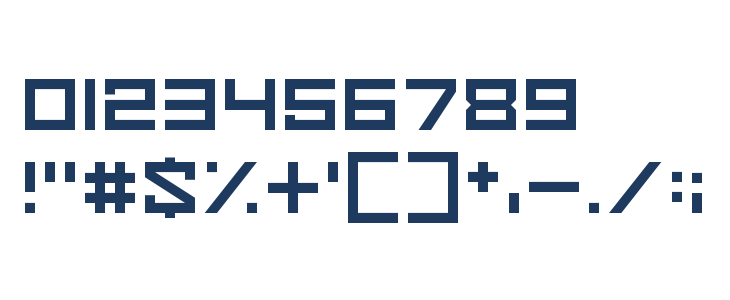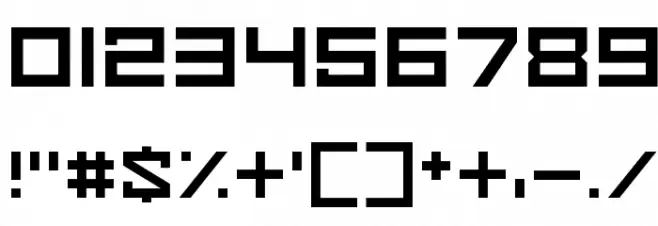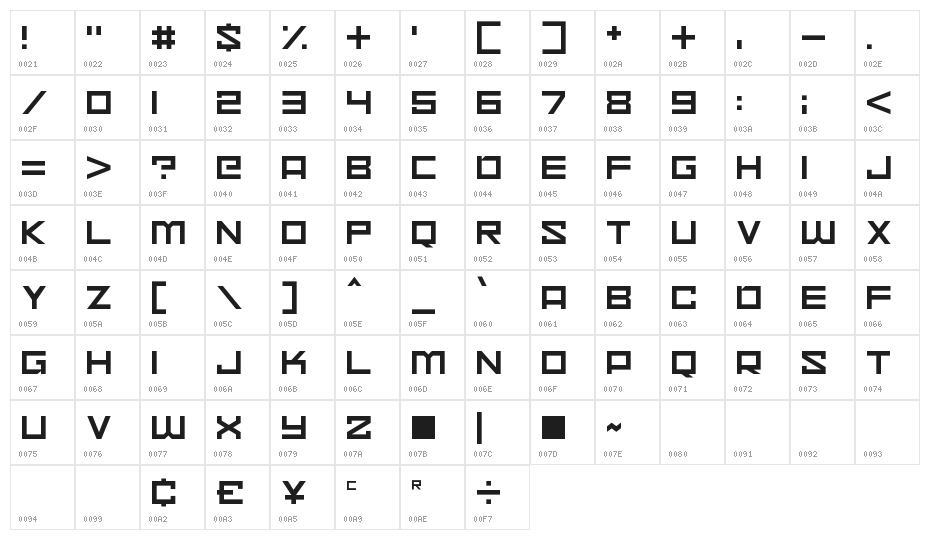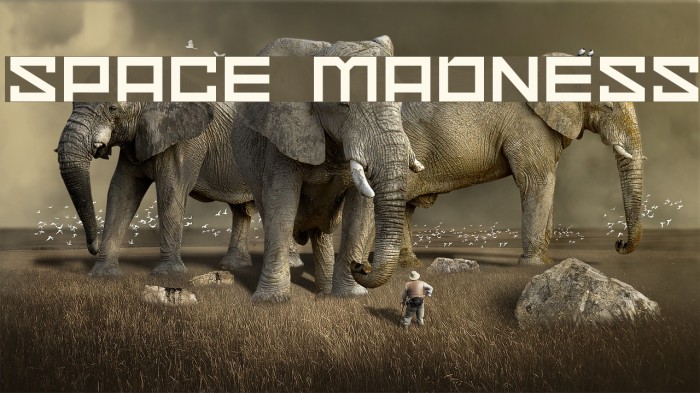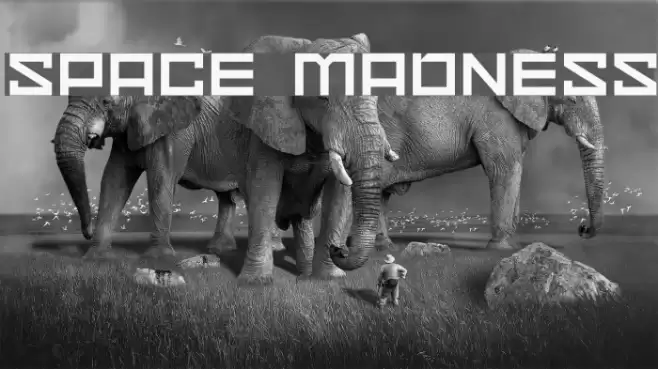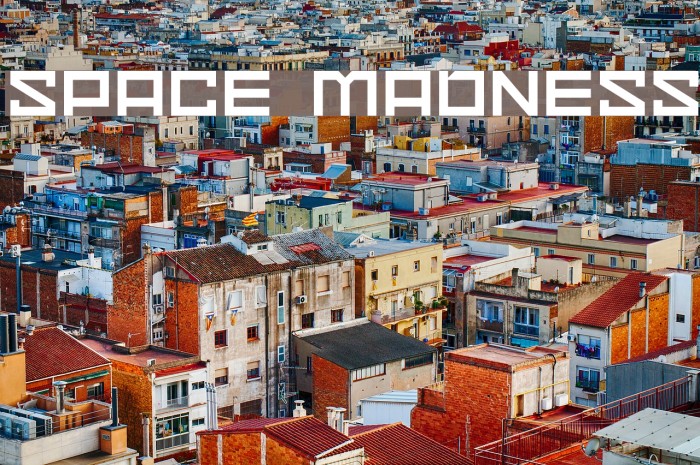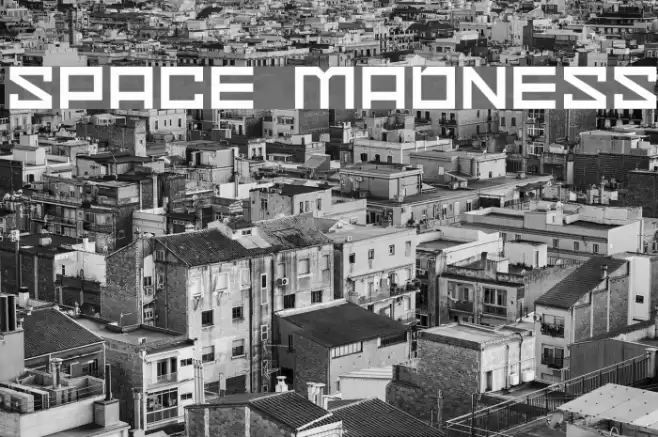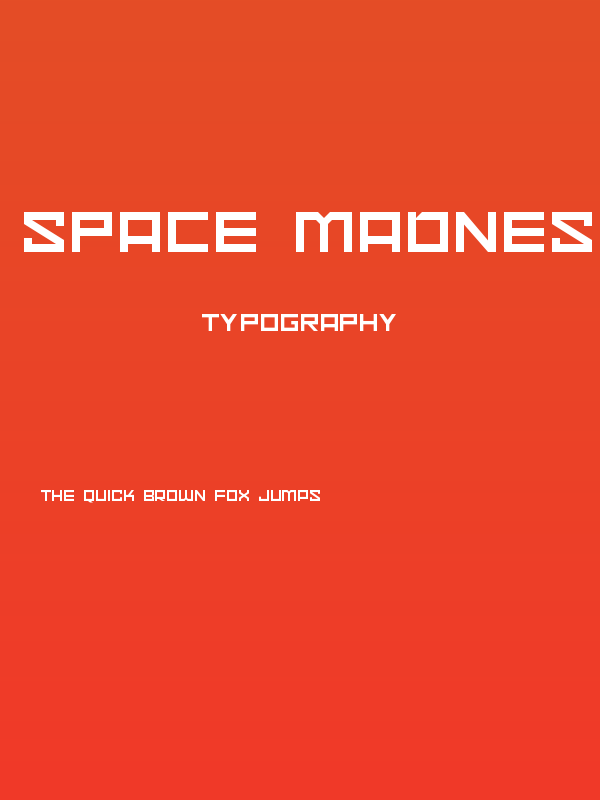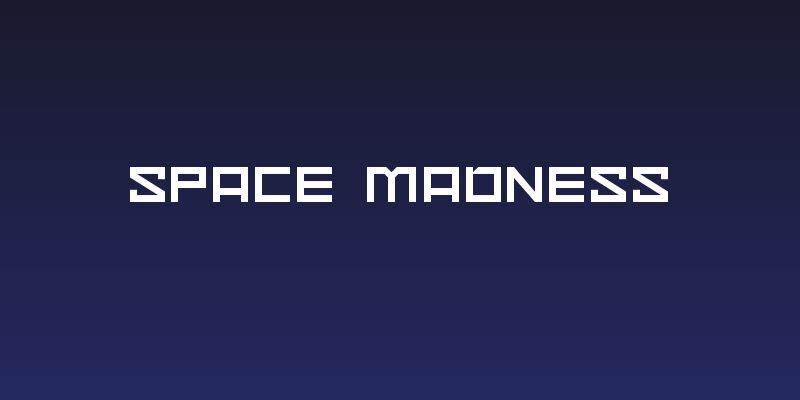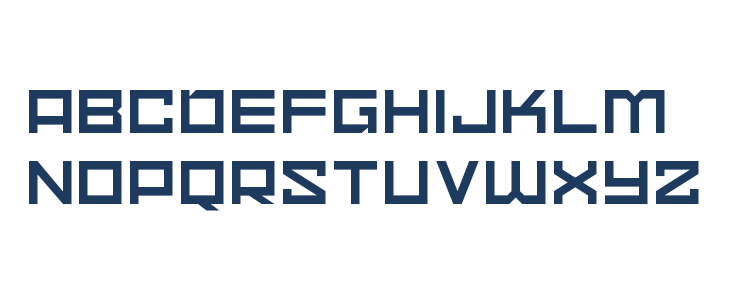
Space Madness Font
Space Madness Description
This font features a bold, geometric design with a futuristic and angular aesthetic. Each character is constructed with sharp, clean lines and a uniform thickness, giving it a modern and technical appearance. The uppercase and lowercase letters maintain a consistent style, with the uppercase letters exhibiting a slightly more pronounced angularity. The numerals and special characters follow the same design principles, ensuring a cohesive look across all elements. The font's distinct style makes it ideal for projects that require a contemporary and edgy feel, such as technology-related branding, sci-fi themes, or digital interfaces.
| Proposed Projects | Ideal for technology branding, sci-fi themes, digital interfaces, and modern advertising. |